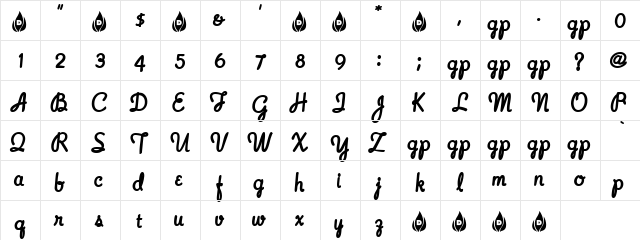
HickoryWind Regular
Design Context for HickoryWind Typeface
HickoryWind is a composed and adaptable typeface that performs quietly and consistently across a wide range of design contexts.